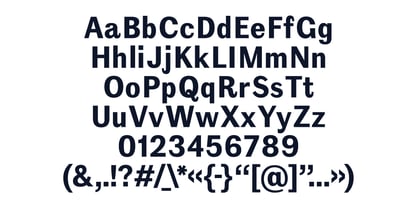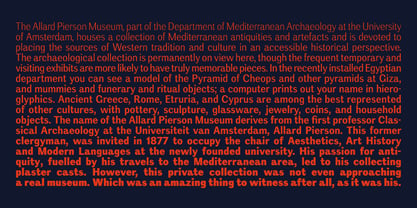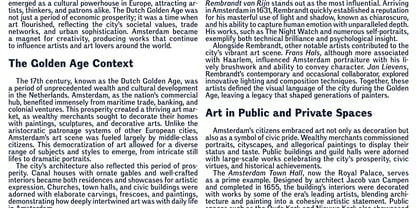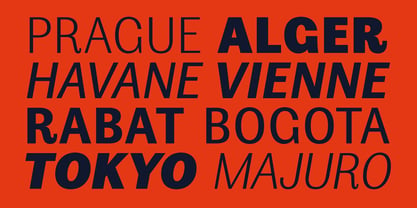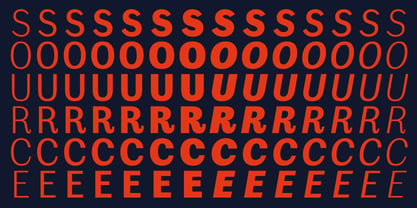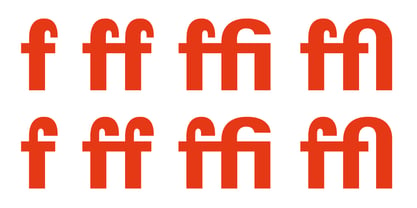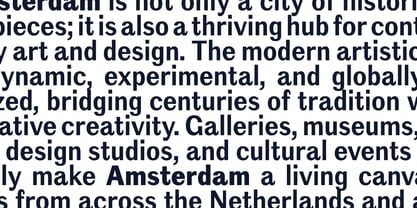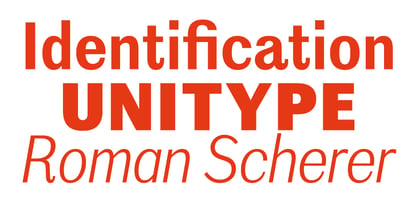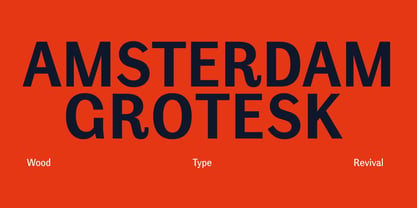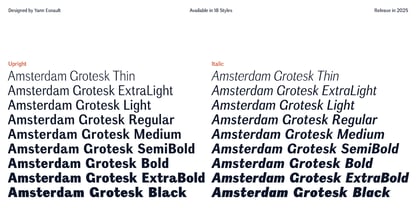
Amsterdam Grotesk Variable
by Blaze Type
The Amsterdam Grotesk Variable Font Family was designed by Yann Esnault and published by Blaze Type. Amsterdam Grotesk Variable contains 1 styles.
Amsterdam Grotesk is a revival of a wood type discovered in the type case of an old printing workshop named Unitype in Brussels. The distinctive terminations of the letterforms immediately capture attention—shapes that exude both unexpected charm and singularity. Amsterdam Grotesk serves as a generous reinterpretation of the Grotesque/Gothic tradition, infused with a distinctly calligraphic sensibility evident in its ending strokes, ample bowls, and other defining features. Designed as a true workhorse family, it bridges the gap between historical revival and contemporary refinement—stabilising certain inherited shapes to create a typeface that is both robust and remarkably elegant. This makes it ideal for complex editorial environments and large-scale typographic systems. Following the initial discovery, extensive research was conducted to trace the origins of these wooden letters while simultaneously developing the typeface. This sans-serif version marks the first step in the creation of a broader family. Designed for versatility, Amsterdam Grotesk meets the demands of signage systems, branding, global visual identities, and editorial design with clarity and sophistication.